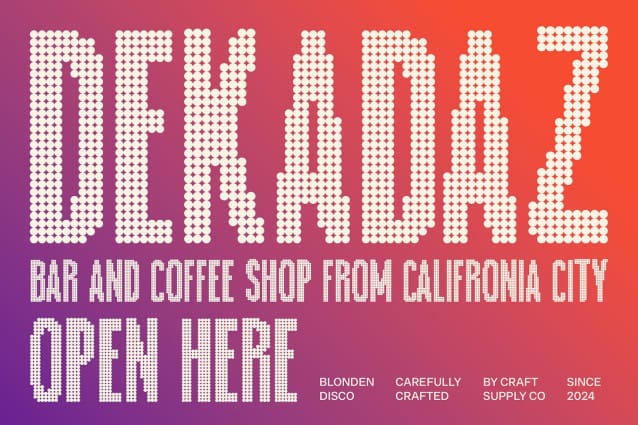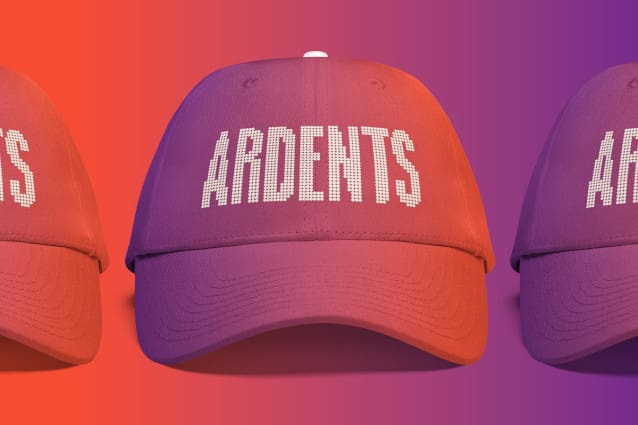
Blonden Disco Font
Blonden Disco Font is a modern sans-serif font featuring a condensed shape that highlights sleekness and efficiency. Its narrower and taller letters provide a streamlined, contemporary appearance, making it perfect for designs where space is at a premium and a bold impact is desired.
Disco Effect for Dynamic Appeal The disco effect on Blonden Disco adds a shimmering, light-reflective quality that evokes the vibrant aesthetics of the 70s and 80s. This sparkling effect infuses the font with energy and movement, creating a visually engaging experience that captures attention and energizes any design.
Futuristic and Energetic Look Blonden Disco combines its modern, condensed design with the disco effect to deliver a futuristic and lively appearance. Ideal for concert posters, party events, and bold product branding, this font stands out with its unique blend of retro charm and contemporary flair. Its dynamic style ensures that your designs will make a memorable impression.